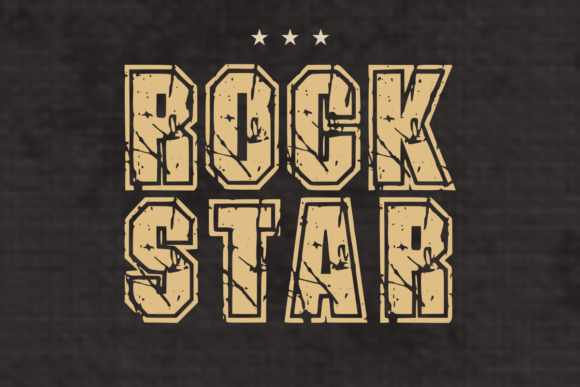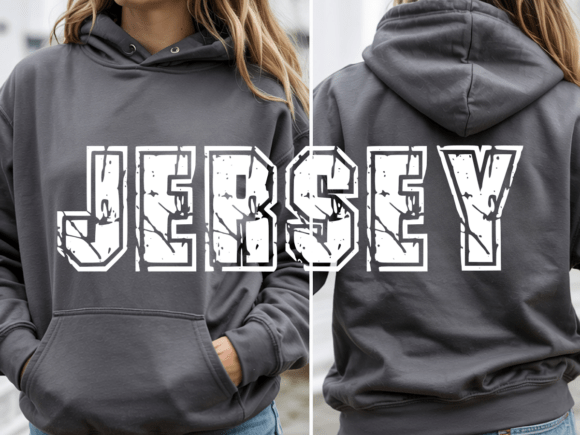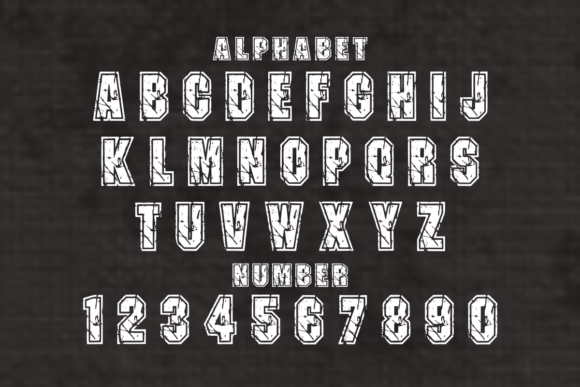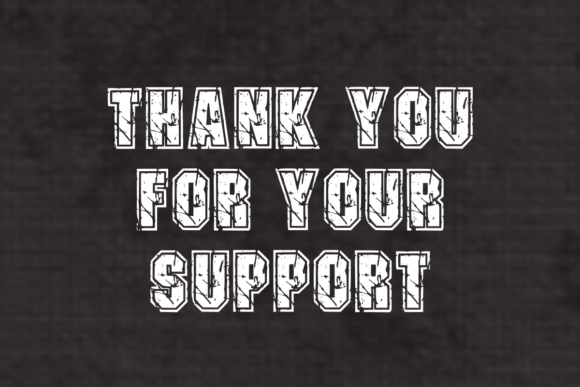
🔥 Unleash the Power of Black Battle: The Ultimate Display Font for Bold Designs 🔥
Have you ever been in the middle of a design project, and suddenly, you just can’t seem to find the right font? You’re not alone! I recall working on a project for a client who needed a rugged, industrial look, and I spent hours scouring the internet for the perfect font. That’s when I stumbled upon Black Battle, a commanding display font that instantly captured the essence of strength and authority I was looking for.
Black Battle is more than just a font; it’s a statement. Its massive blocky structure and weathered, “rough” texture evoke the raw essence of industrial grit and vintage military aesthetics. In this article, we’ll dive into what makes Black Battle stand out, its features, and how to make the most of it in your designs.
Why Black Battle Stands Out
Black Battle’s heavy slab-serif anatomy and eroded details make it the perfect choice for high-impact projects that require a rugged, handmade, or aged look. The clean outlines ensure it remains easy to cut for crafters while maintaining its intricate distressed inner texture. Here are some key features that make Black Battle a top pick:
• ✨ Massive blocky structure for a bold, industrial look
• ✅ Weathered, “rough” texture for a vintage, military feel
• ⚔️ Heavy slab-serif anatomy for high-impact designs
• 🔍 Intricate distressed inner texture for added depth
• ✨ The font’s versatility – it can be used for a wide range of projects, from posters to logos
• ✅ The distressed texture adds a unique touch to any design
• ⚔️ The font’s bold, industrial look is perfect for making a statement
• 🤔 The font can be a bit tricky to read at smaller sizes due to its distressed texture
• ⚠️ Some users may find the font’s boldness overwhelming for certain projects
The Story Behind Black Battle
Black Battle was designed with the intention of creating a font that exudes strength and authority. The designer’s inspiration came from vintage military aesthetics and industrial grit, resulting in a font that’s perfect for high-impact projects. Whether you’re working on a logo, poster, or any other design that requires a bold statement, Black Battle is the perfect choice.
Q: What type of projects is Black Battle best suited for?
A: Black Battle is perfect for high-impact projects that require a rugged, industrial look, such as posters, logos, and brochures.
Q: Is Black Battle easy to read?
A: Black Battle can be a bit tricky to read at smaller sizes due to its distressed texture. However, it’s perfect for headlines or titles where you want to make a bold statement.
Q: Can I use Black Battle for crafting projects?
A: Yes, Black Battle is a great choice for crafting projects, such as making signs, banners, or other DIY projects. Its clean outlines make it easy to cut out intricate designs.